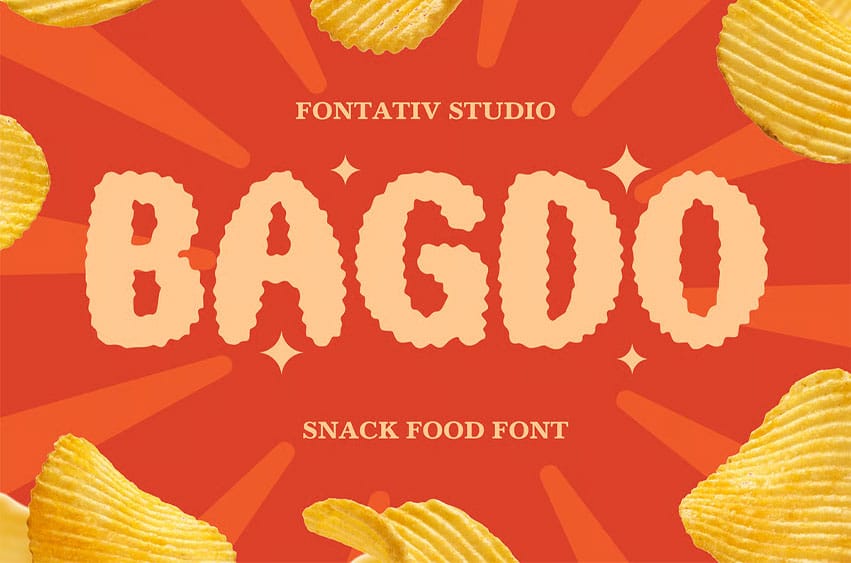
Bagdo Font is a playful snack food font designed to bring fun, flavor, and energy to food branding projects. Its chunky hand-drawn letterforms create a bold and appetizing look, making it perfect for snack packaging, potato chips brands, food promotions, restaurant campaigns, menus, posters, and product labels.
With its friendly and eye-catching style, Bagdo works beautifully for logos, branding, packaging, social media content, headlines, and advertising materials. Whether you’re creating designs for chips, snacks, street food, or modern food businesses, Bagdo delivers a cheerful personality that stands out instantly.